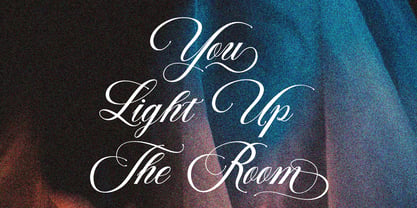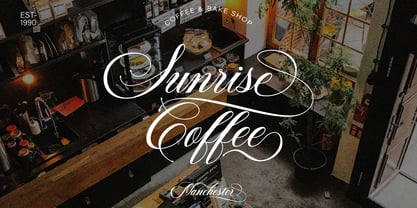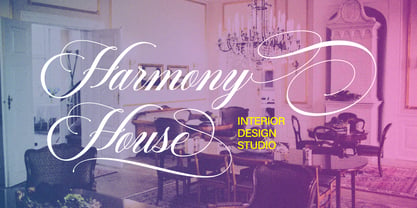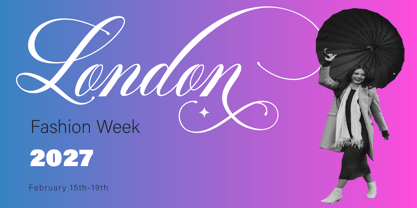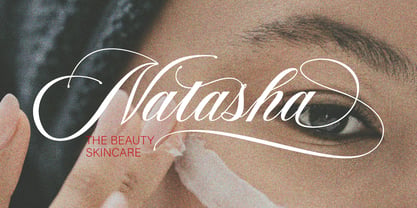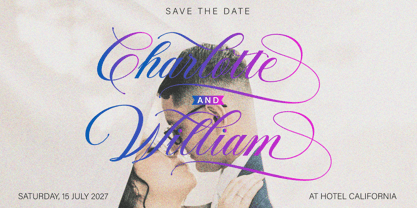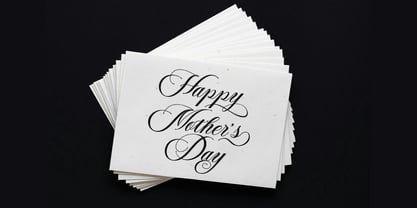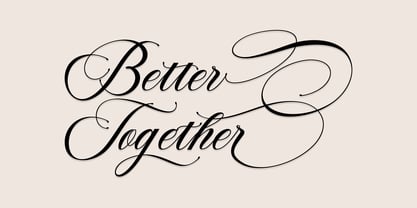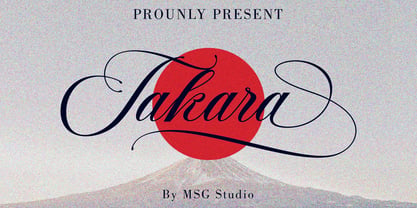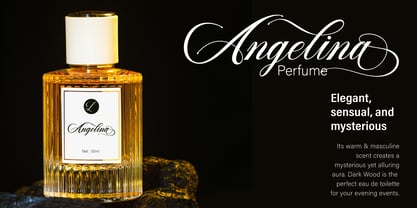
Takara
by Masinong Studio
The Takara Font Family was designed by Fajriadi and published by Masinong Studio. Takara contains 1 styles. More about this family
Takara is a handcrafted font with a stunning character. Ideal for logos, name tags, handwritten quotes, product packaging, merchandise, social media, and greeting cards. This font includes a full set of lowercase and uppercase letters, a wide variety of punctuation marks, numbers, and multilingual support. If you have any questions, please feel free to contact me at Thank you!